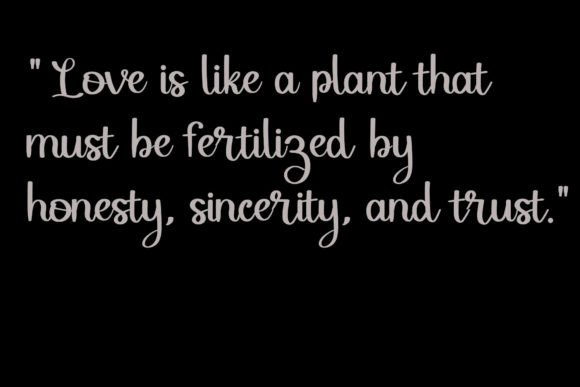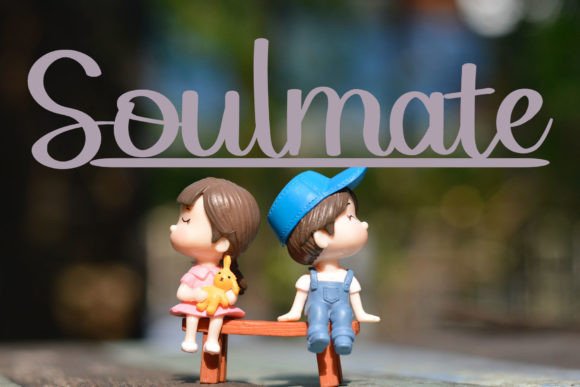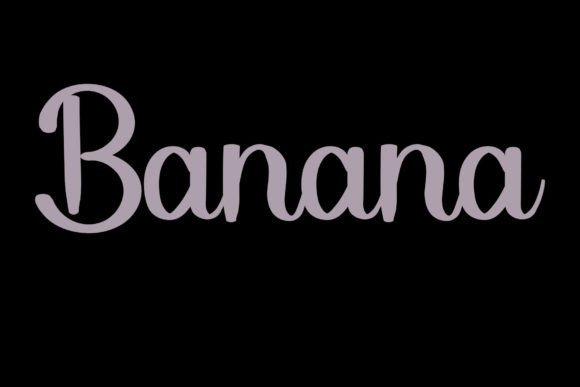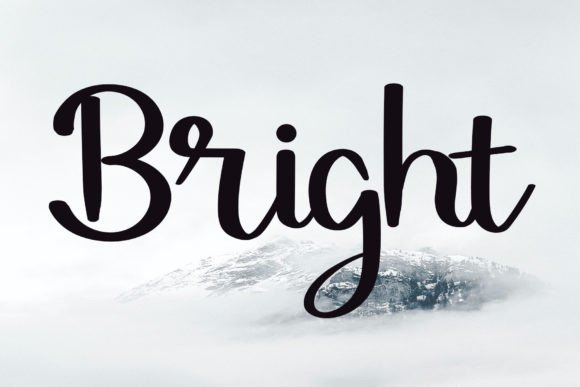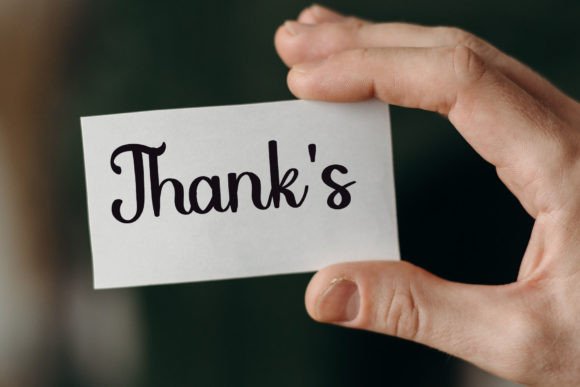
About Lamplight Font
Lamplight is a delicate, elegant, and flowing handwritten font that exudes sophistication. With its beautifully crafted and well-balanced characters, this font seamlessly complements a wide range of design styles. Incorporate Lamplight into your most creative ideas, and witness how it brings them to life with its distinctive charm.
The delicate nature of Lamplight adds a touch of refinement to your designs, making it suitable for projects that demand a sense of elegance. Whether you’re working on invitations, branding, posters, or any creative endeavor, Lamplight’s flowing script enhances the visual appeal with grace and style.
The well-balanced characters in Lamplight ensure readability while maintaining a sense of artistic flair. This makes it a versatile choice for various design applications, allowing it to adapt effortlessly to different contexts without losing its unique charm.
As you integrate Lamplight into your creative projects, you’ll appreciate its ability to transform ordinary text into a visual masterpiece. This font isn’t just a tool; it’s a creative asset that brings a delicate and elegant quality to your designs, capturing the attention and admiration of your audience.
In summary, Lamplight is a font that shines with delicacy and elegance, making it a perfect choice for those seeking a script font that adds a touch of sophistication to their designs. Let Lamplight be the graceful element that breathes life into your most creative ideas.